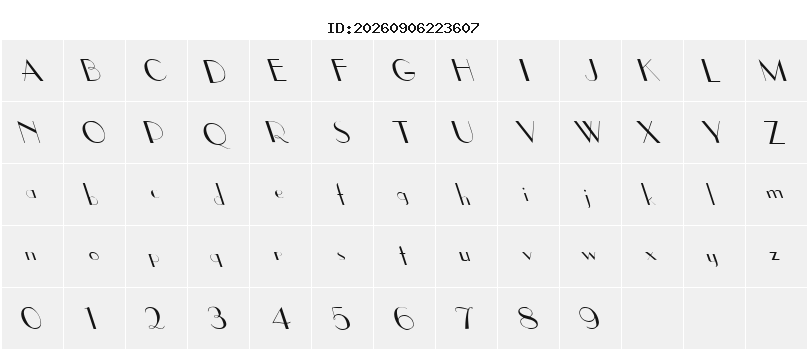
Upp Ea Leftys Preview
• Font Name: Upp Ea Leftys
• Full Font Name: Upp Ea Leftys
About Upp Ea Leftys.ttf
Upp Ea Leftys.ttf is a modern, elegant sans-serif font designed for ultimate readability and visual harmony. Perfect for branding, headlines, web design, and print materials.